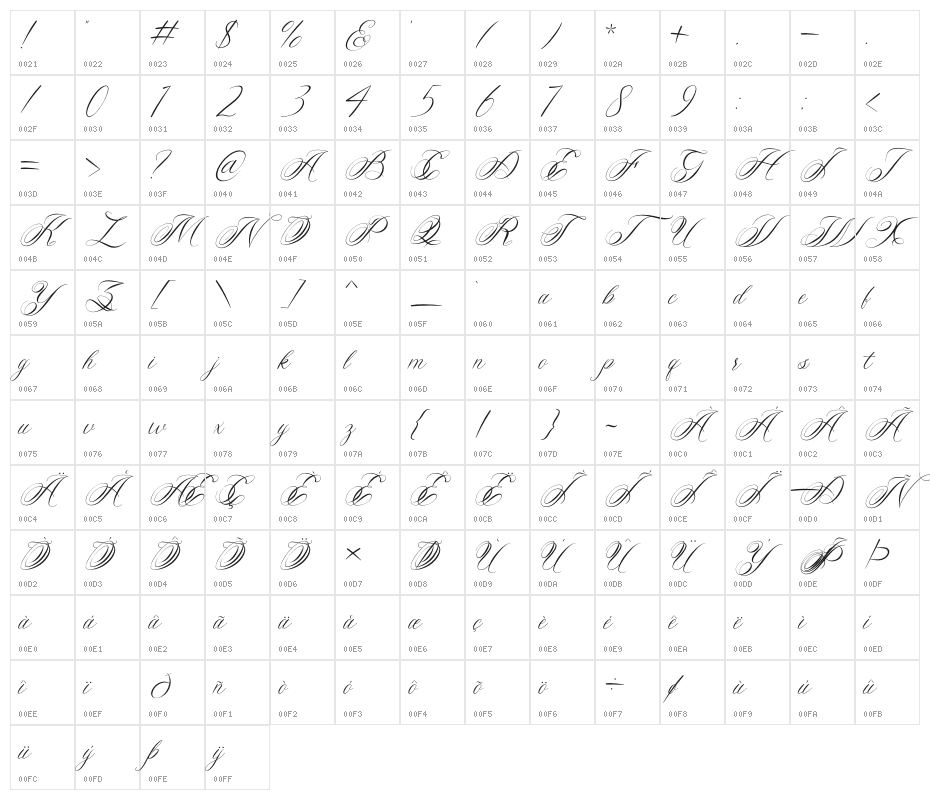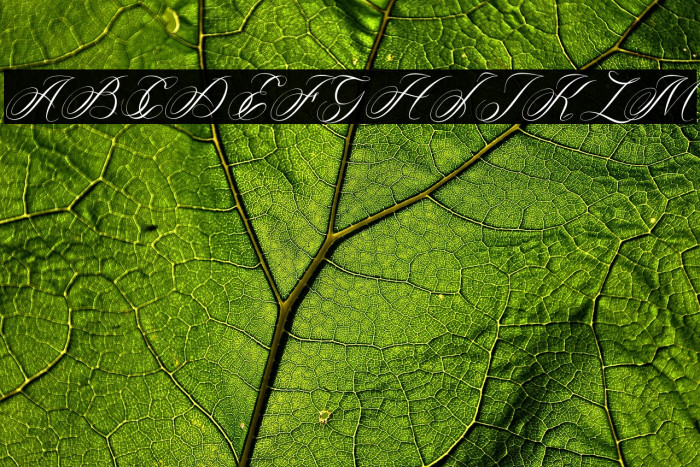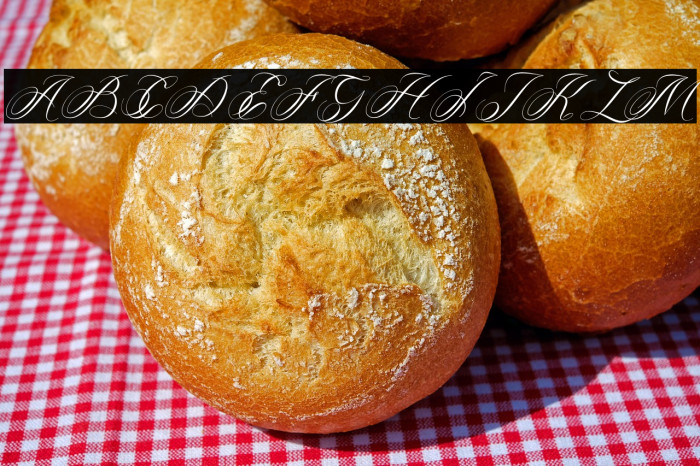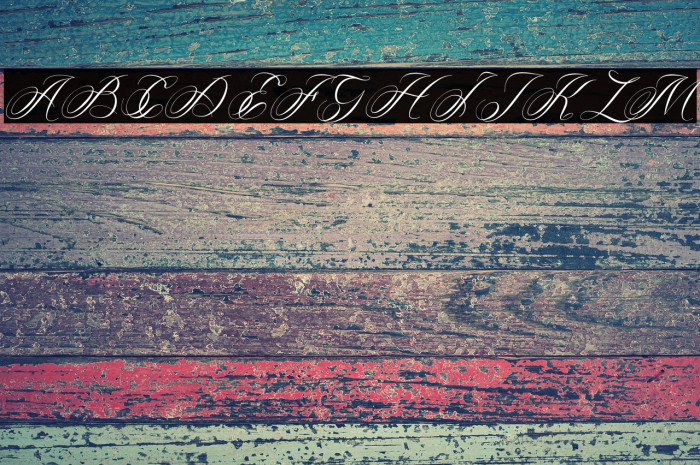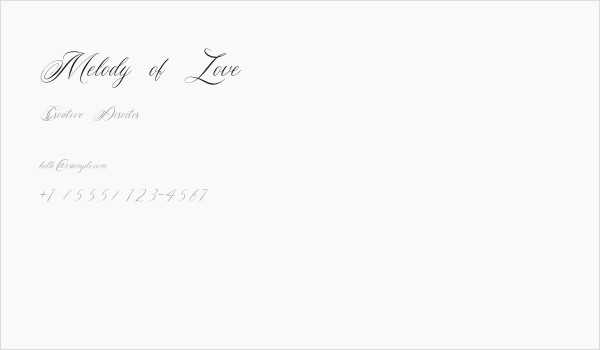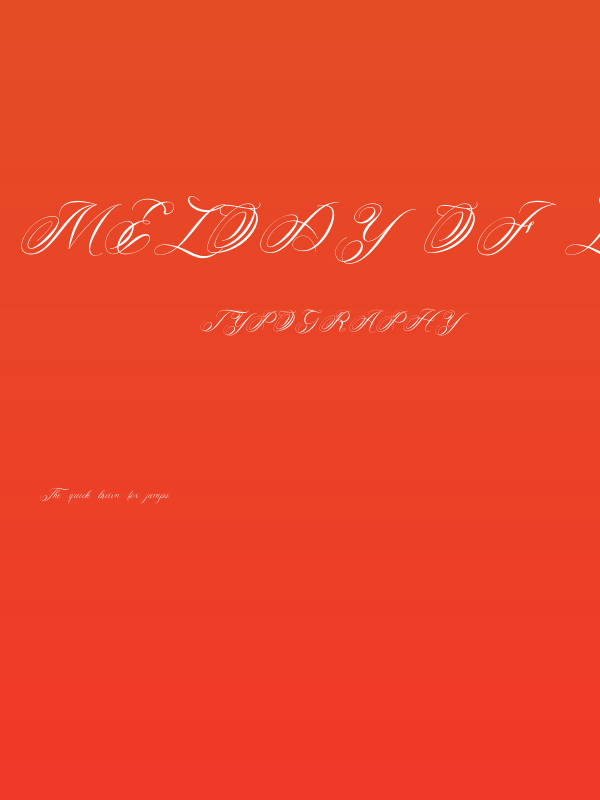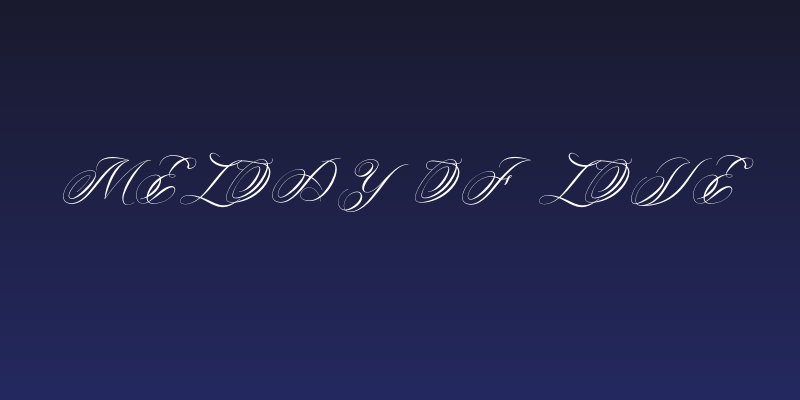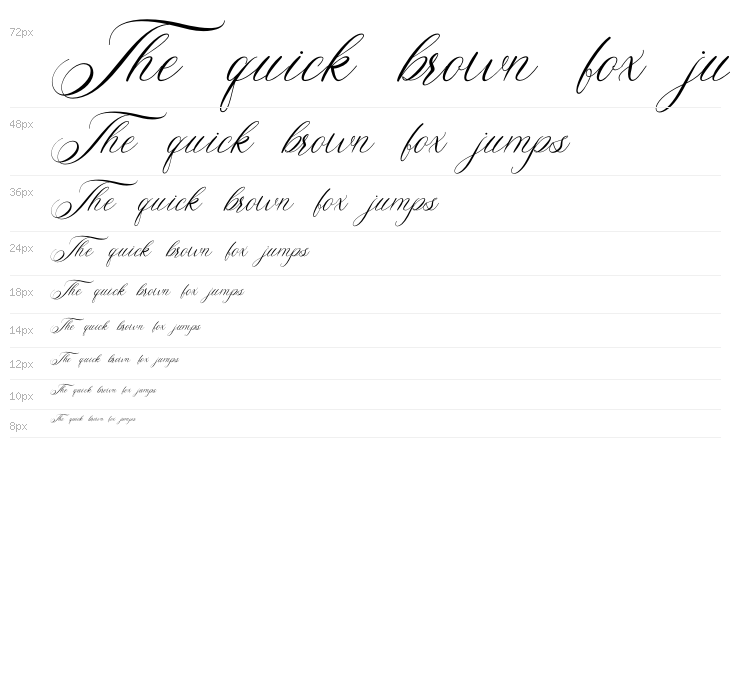
Melody of Love Font
Melody of Love Description
This elegant script font exudes a sense of romance and sophistication, characterized by its flowing, cursive letterforms. The uppercase letters are adorned with intricate swashes and loops, adding a decorative flair that enhances its graceful appearance. The lowercase letters maintain a consistent fluidity, with gentle curves and smooth connections between characters. The numerals and special characters are designed with the same attention to detail, ensuring a cohesive look throughout. This font's delicate strokes and high contrast between thick and thin lines contribute to its refined and luxurious feel, making it ideal for formal and decorative applications.
| Proposed Projects | Wedding invitations, luxury branding, greeting cards, elegant packaging, and formal event programs. |